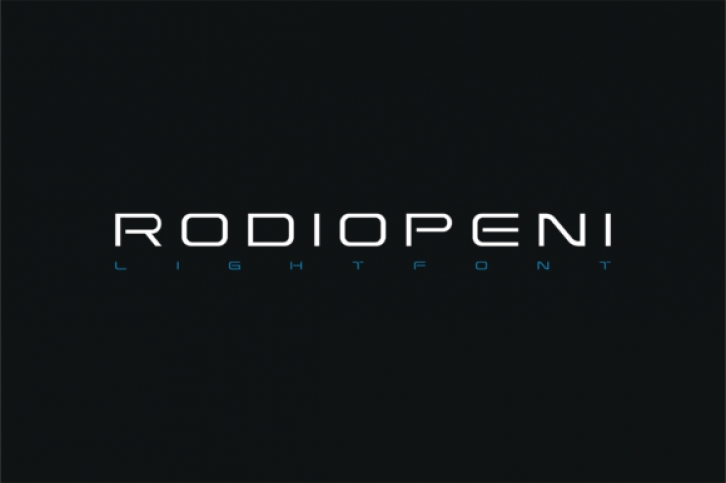
Radiopeni is a simple and modern sans serif font. This original look will appeal to a wide range of crafty ideas, from letterheads and titles, to stationery.